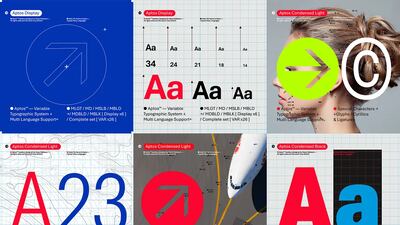
Microsoft has selected its new default font.
After 15 years of Calibri, which replaced Times New Roman in 2007, a new font called Aptos (formerly known as Bierstadt) will be rolled out as the default typeface in the next few months on Microsoft programmes.
“We begin the final phase of this major change where Aptos will start appearing as the new default font across Word, Outlook, PowerPoint and Excel for hundreds of millions of users,” said Si Daniels, a principal programme manager at Microsoft, in a blog post on Thursday. “And, over the next few months, it will roll out to be the default for all our customers.”
Daniels described Aptos as a "bold, well-defined, directive and constrained" font that "embodies professionalism, adaptability, subtle flourishes of expression and more clarity". Despite the change, users can also still choose to set any other font as the default such as Calibri, Times New Roman, Helvetica or Arial in their settings.
In May 2021, Microsoft announced it was on the search for a new default typeface. Five commissioned fonts were then shortlisted: Tenorite, Aptos (then known as Bierstadt), Skeena, Seaford and Grandview.
The winner, by font designer Steve Matteson, is inspired by mid-20th-century Swiss typography.
At the time of its shortlist, Microsoft described Aptos as precise and contemporary. The company also noted it was a versatile typeface that expressed "simplicity and rationality in a highly readable form” with "notably clear-cut with stroke endings that emphasise order and restraint.”
The other four fonts will still be available in Office, and Microsoft is even keeping the Bierstadt font name around in the drop-down menu for those who have already become familiar with it. Matteson said that while he is happy Aptos was selected, he didn't think there needed to be a new default font.
“I can understand Microsoft wanting to make a change, but I don’t think there’s ever been anything wrong with Calibri,” Matteson told CNBC.